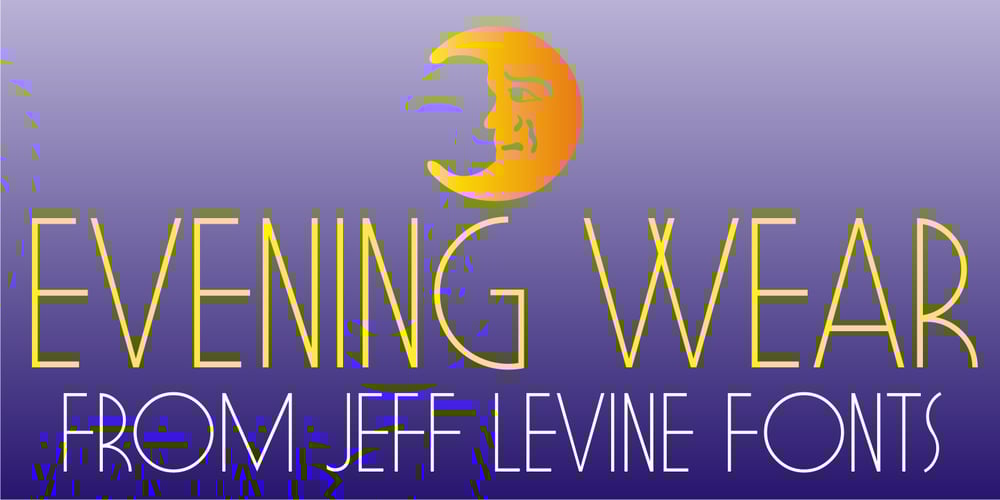
Evening Wear JNL Font Family was designed by Jeff Levine and published by Jeff Levine. Evening Wear JNL contains 1 styles and family package options. Evening Wear JNL, drawn from the elegant monoline lettering used as titling on the sheet music for “Smoke Gets In Your Eyes”, conjures up images of 1930s New York at its apex. Fine restaurants, elegant night clubs and couples decked out in their best evening apparel were of a time long past when “doing the town” meant really dressing up for the occasion.